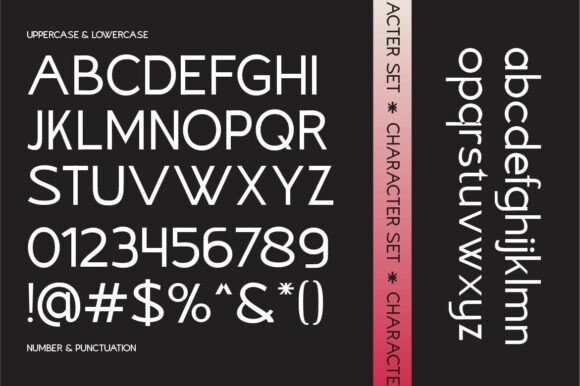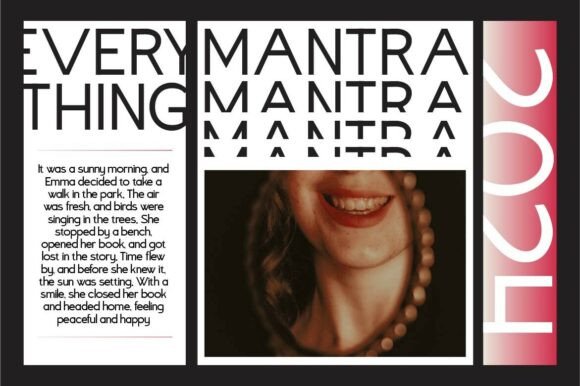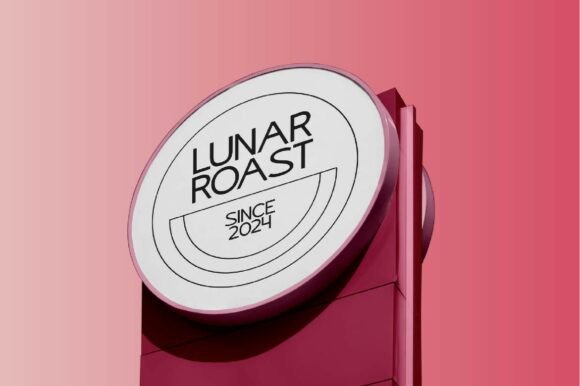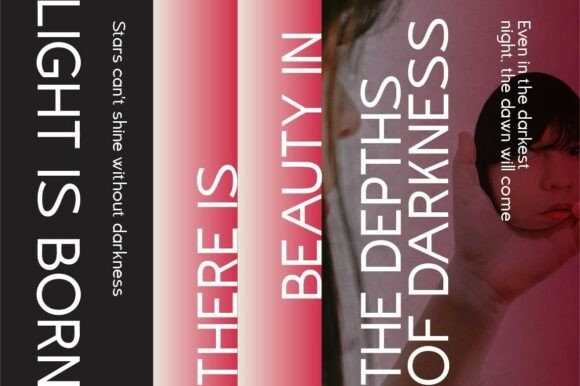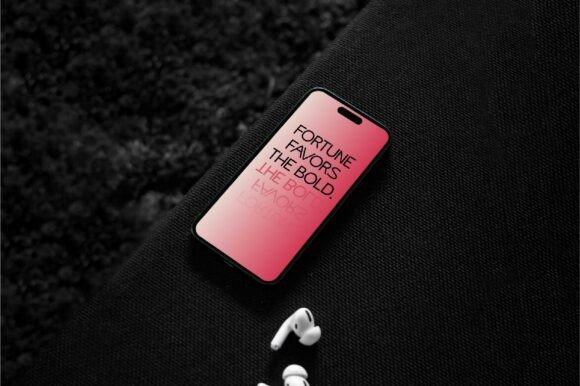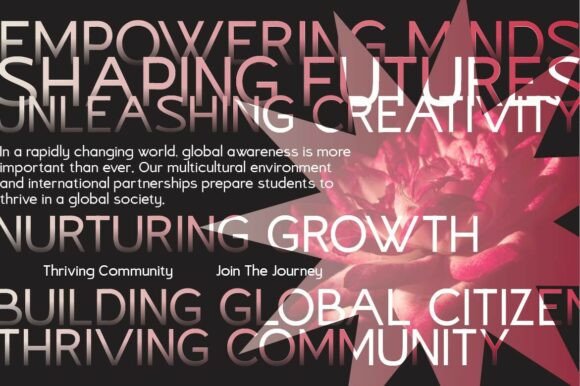
Introduction to Keager Font
Remember the thrill of finding that perfect font for your creative project? The one that elevates your design from ordinary to extraordinary? For designers, it’s a moment of pure joy. And for those seeking a bold and modern look, we’re excited to introduce the Keager Font – a striking sans-serif typeface that’s about to become your new go-to design resource.
With its clean, geometric structure and distinctive flair, the Keager Font is an exceptional choice for display purposes. Whether you’re creating a brand identity, crafting social media graphics, or designing packaging that demands attention, this high-quality font is sure to make a lasting impression. And the best part? You can download the Keager Font for free, making it an accessible and valuable addition to your design toolkit.
Key Features of Keager Font
- High-quality design: The Keager Font is designed with precision and attention to detail, ensuring a professional look for any creative project.
- Unique aesthetic: The Keager Font features a distinctive and modern design style, making it an excellent choice for designers looking to add a touch of sophistication to their creative project.
Honest Review: Keager Font
One of the things that stands out about the Keager Font is its high quality. The font is clear, legible, and has a unique touch to it that sets it apart from other free fonts.
Here are some of the things that work well about the Keager Font: ✨
- High quality design that’s perfect for creative projects
- The font is only available in a few weights and styles
Overall, I’m impressed with the Keager Font. It’s a great design resource that’s perfect for personal or small-scale projects. While it may have some limitations, the high quality design and free download make it a great option for designers looking for a unique and affordable font.
Tips for Getting the Most Out of Keager Font
Experiment with different font sizes and styles to find the perfect look for your project. Use the Keager Font in combination with other design elements to create a unique and engaging visual identity.
Common Use Cases for Keager Font
The Keager Font is perfect for a variety of creative projects, including social media graphics, presentations, and marketing materials. Its high-quality design and transparent background make it a versatile and valuable design resource.